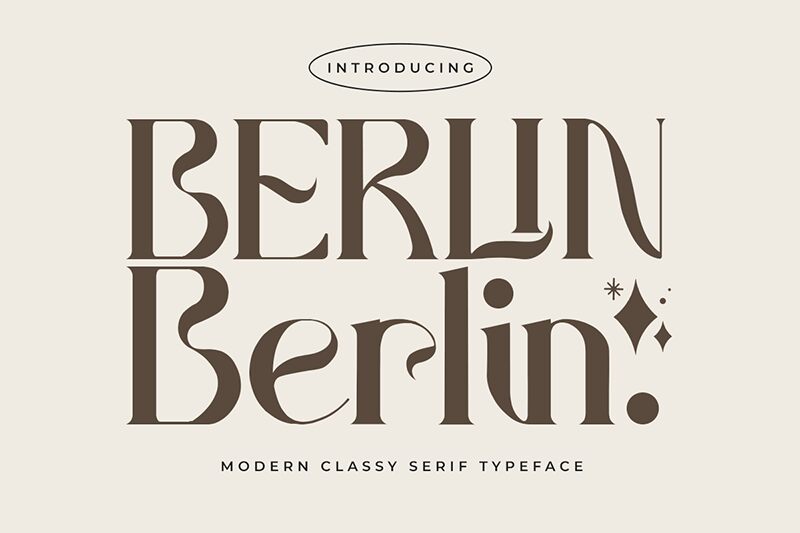
Berlin font by Kong Font is a fancy free font that offers a stylish, contemporary look. With a sleek and elegant design, this font lends itself well to modern applications while maintaining a refined and sophisticated appearance. Its ornamental and artistic finishing touch can help provide a luxurious and enticing ambiance in any graphic design.
Berlin is most suitable for invitations, packaging, branding, presentations, posters, logos, advertising, magazines, social media, blogs, labels, and web design. Choose it for poster designs, headlines, and print-on-demand projects.